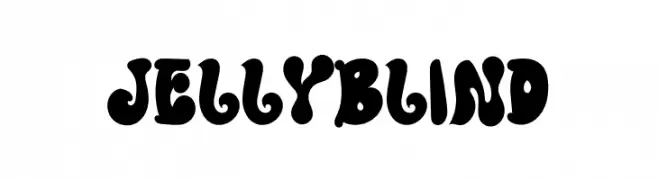
A playful, bold font with rounded, bulbous terminals and a whimsical style.
A playful, rounded font with a bold, bouncy style and hand-drawn charm.
A bold, playful font with rounded, bulbous shapes and a retro vibe.
A bold, playful font with rounded, bulbous letterforms and a whimsical style.
A bold, playful font with rounded, bulbous shapes and a whimsical retro style.